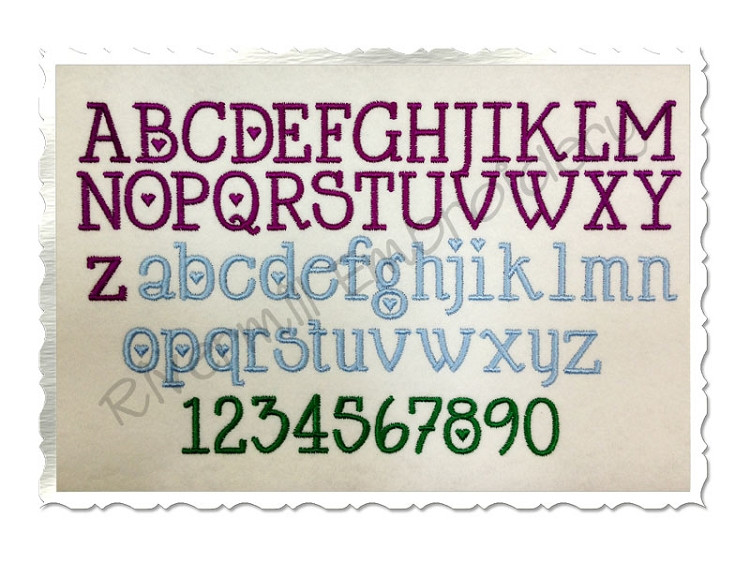
Cupid Machine Embroidery Font Alphabet
You get upper and lower case letters in 3 sizes:
1 Inch Alphabet - Satin Stitch
2 Inch Alphabet - Satin Stitch
3 Inch Alphabet - Satin Stitch (The hearts in this size are fill stitched)